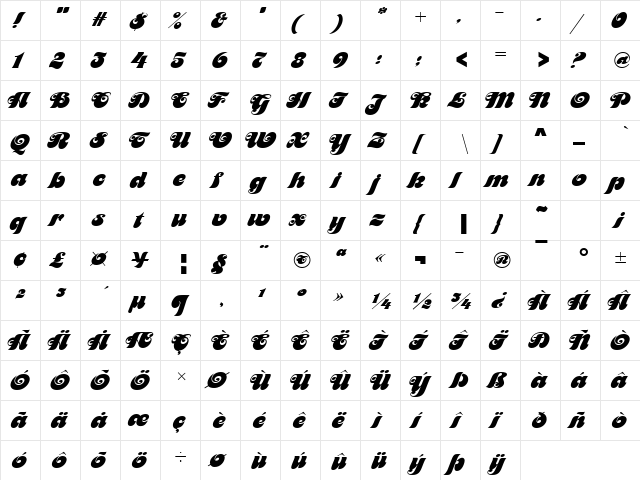
Motter Femina Regular Font Preview
Motter Femina Regular
Design Context for Motter Femina Typeface
Motter Femina is a composed and adaptable typeface that performs quietly and consistently across a wide range of design contexts.